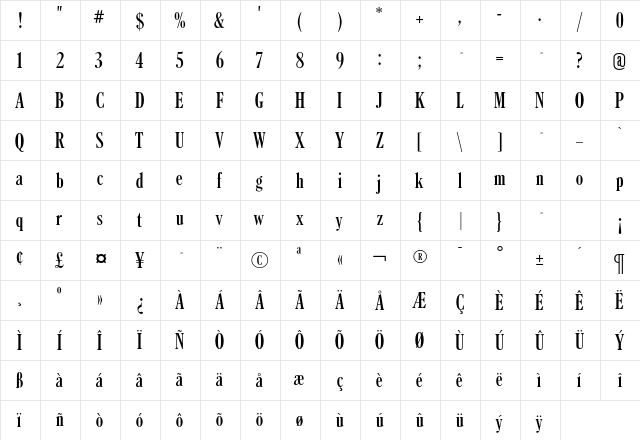
Caslon RR Bold ExtraCond
Design Context for Caslon RR Typeface
Caslon RR is a composed and adaptable typeface that performs quietly and consistently across a wide range of design contexts. The heavy weight commands attention and anchors typographic hierarchies. The condensed width makes it efficient for tight spaces without sacrificing legibility.